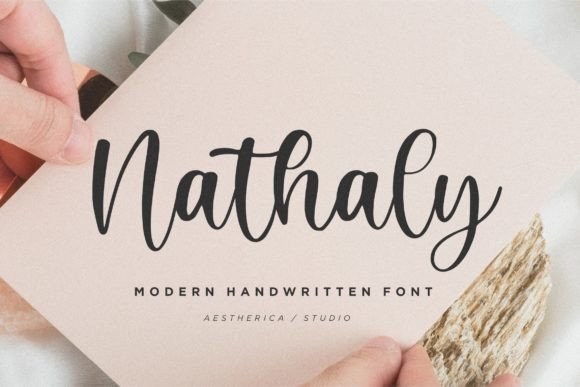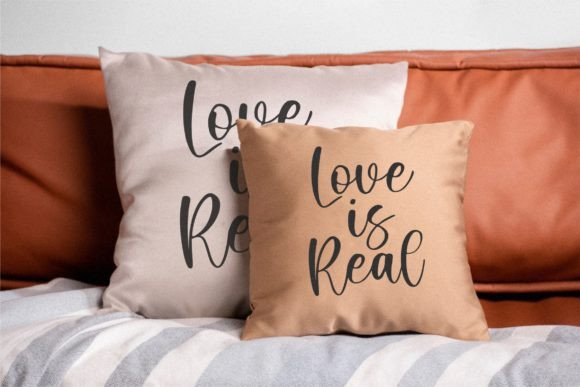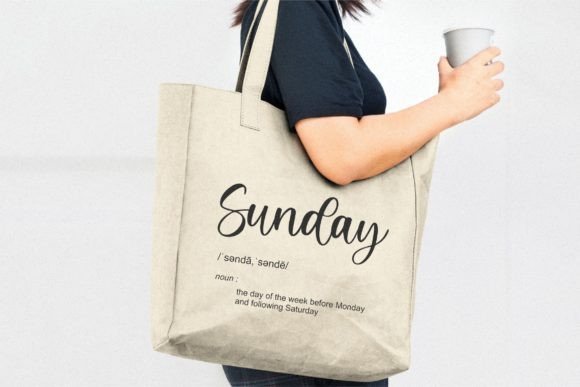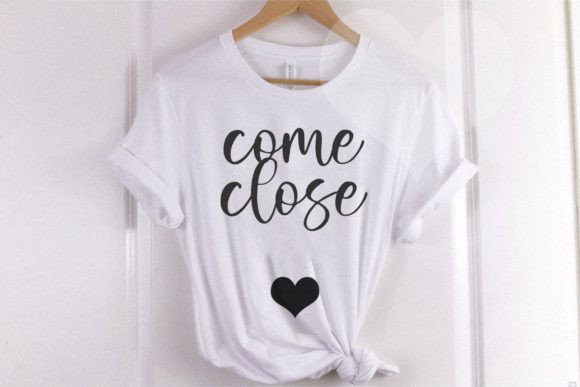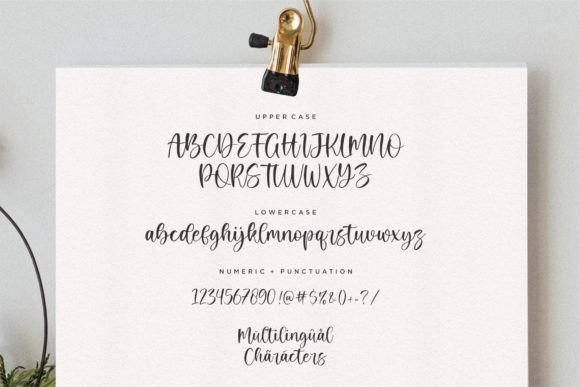
Nathaly Font
About Nathaly Font
“Nathaly” is a sweet and delicate handwritten font that exudes a sense of charm and elegance. This font is well-suited for a variety of design projects, particularly those that require a romantic and personalized touch, such as wedding invitations, cards, and other creative endeavors.
The charm of “Nathaly” lies in its sweet and delicate script. Its beautifully crafted characters create a visually enchanting and refined experience, making it an ideal choice for projects that aim to convey a sense of romance, joy, and personalization.
One of the standout qualities of “Nathaly” is its versatility. Whether you’re using it to craft elegant wedding invitations that capture the essence of romance, design heartfelt cards for special occasions, or add a personalized touch to your various creative projects, this font seamlessly integrates into your creative vision.
This font’s dedication to providing a sweet and delicate look to your projects sets it apart. Whether you’re working on personal or professional endeavors, “Nathaly” brings a sense of charm and refinement to your work that resonates with a diverse audience.
In summary, “Nathaly” is more than just a font; it’s a sweet and versatile creative tool that can make your designs radiate with romance and personalization. Whether you’re a professional designer seeking a font that adds elegance to your projects or an enthusiast passionate about crafting and design, “Nathaly” is here to enhance your creative endeavors with its sweet and delicate script. Embrace the charm of “Nathaly,” and watch your creativity flourish with romantic and personalized designs.